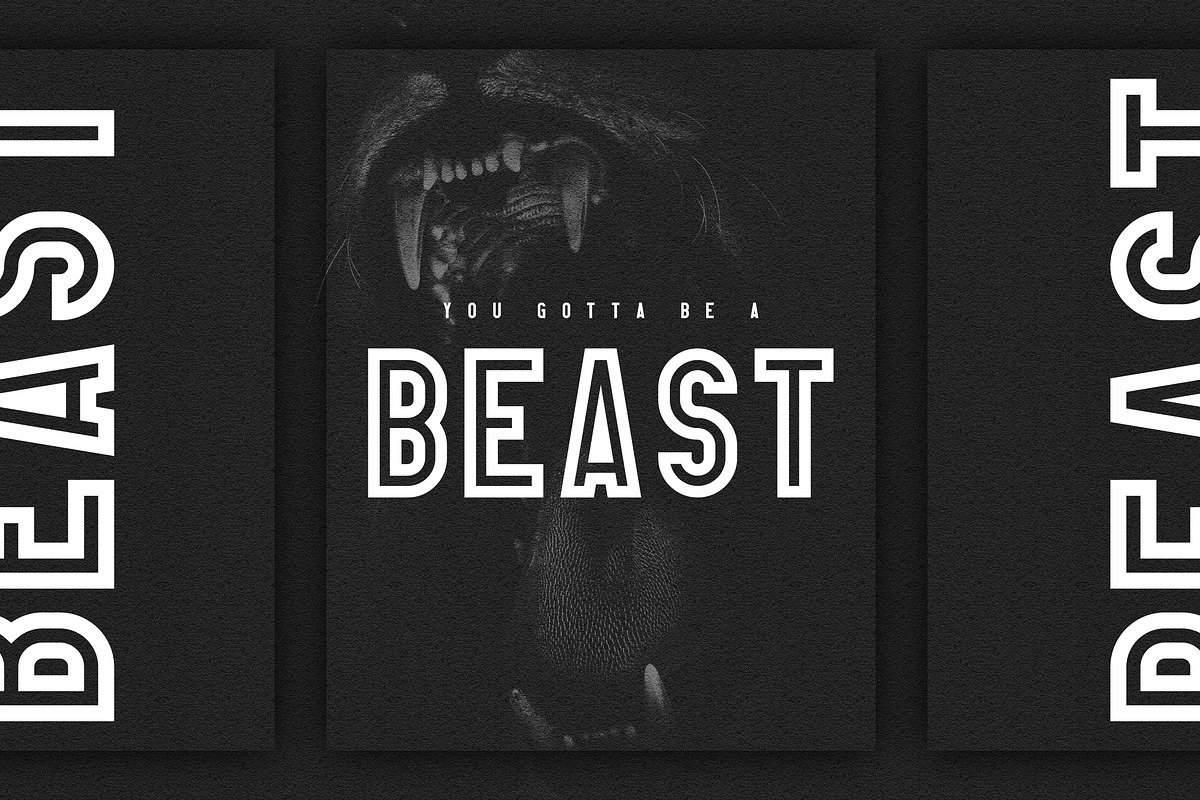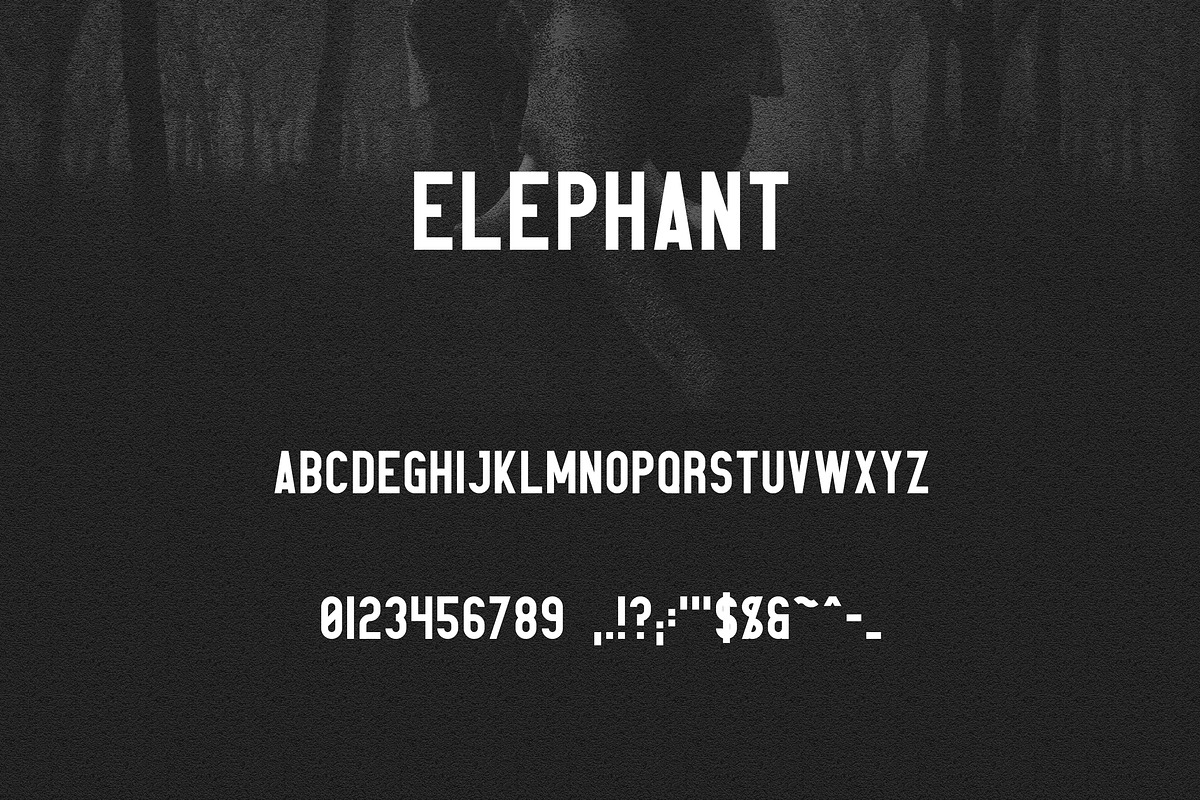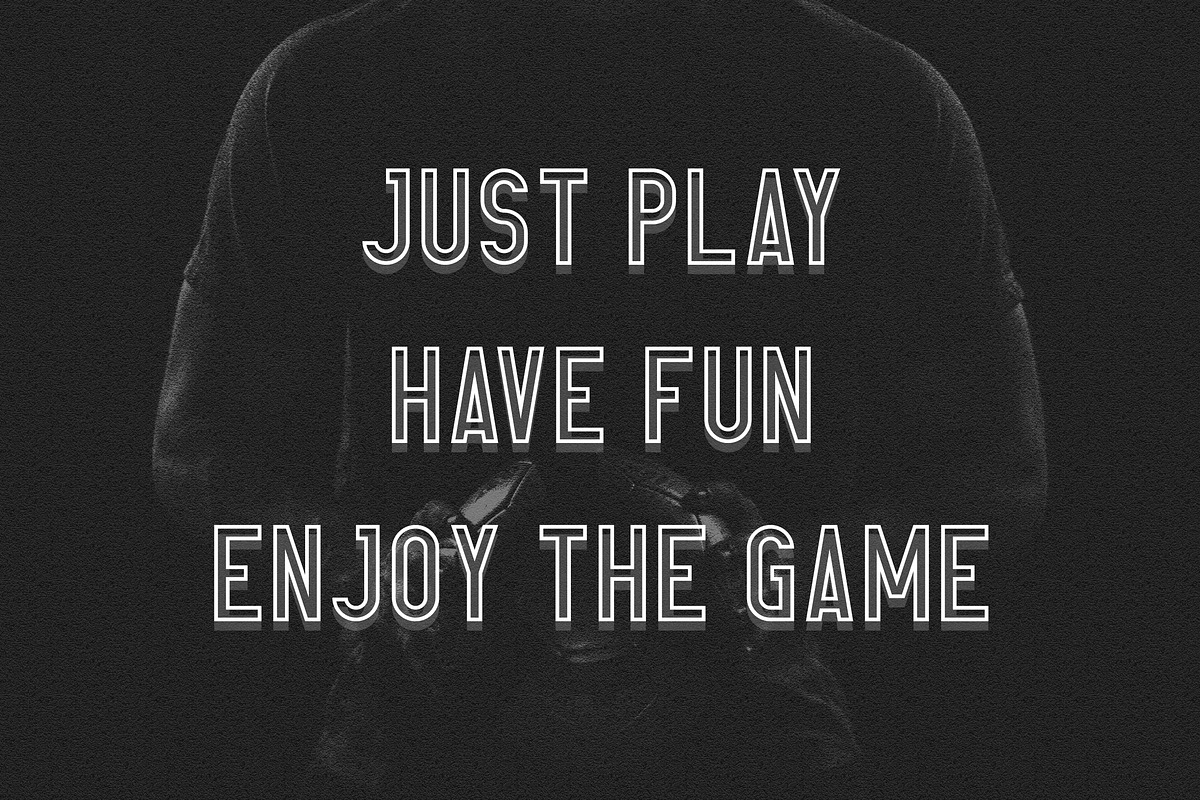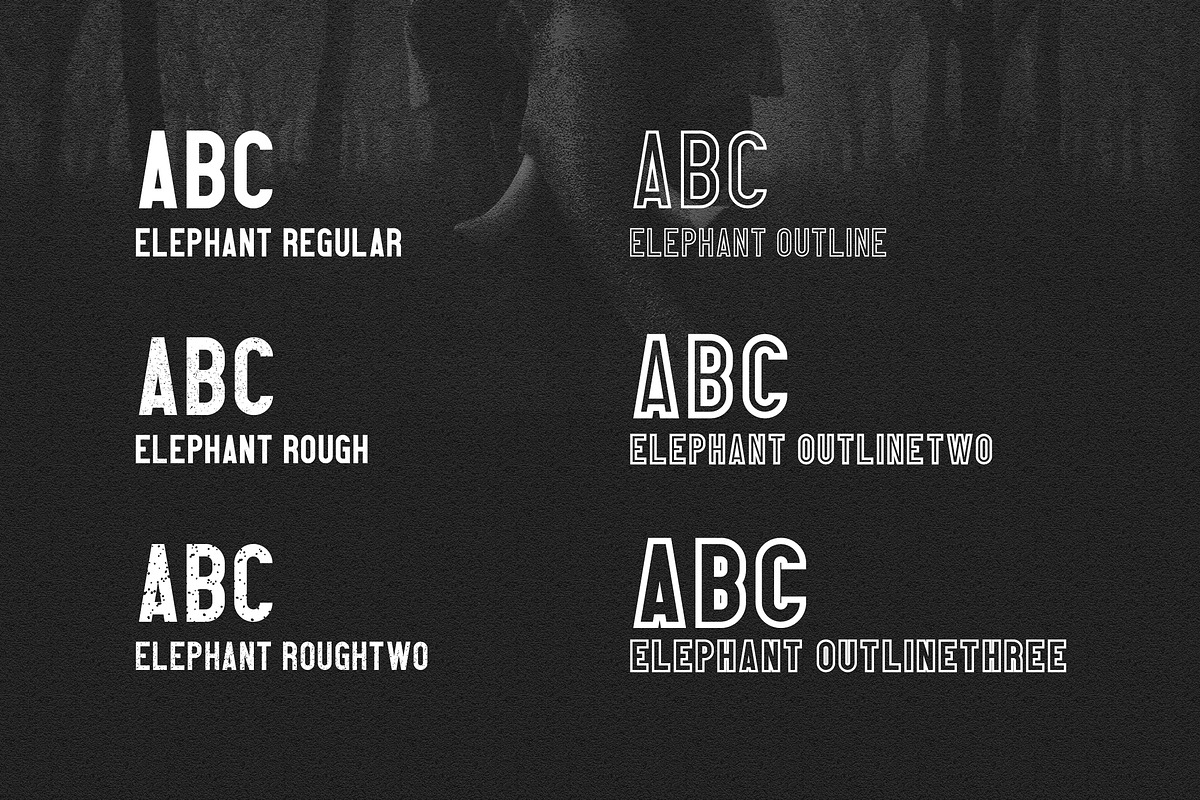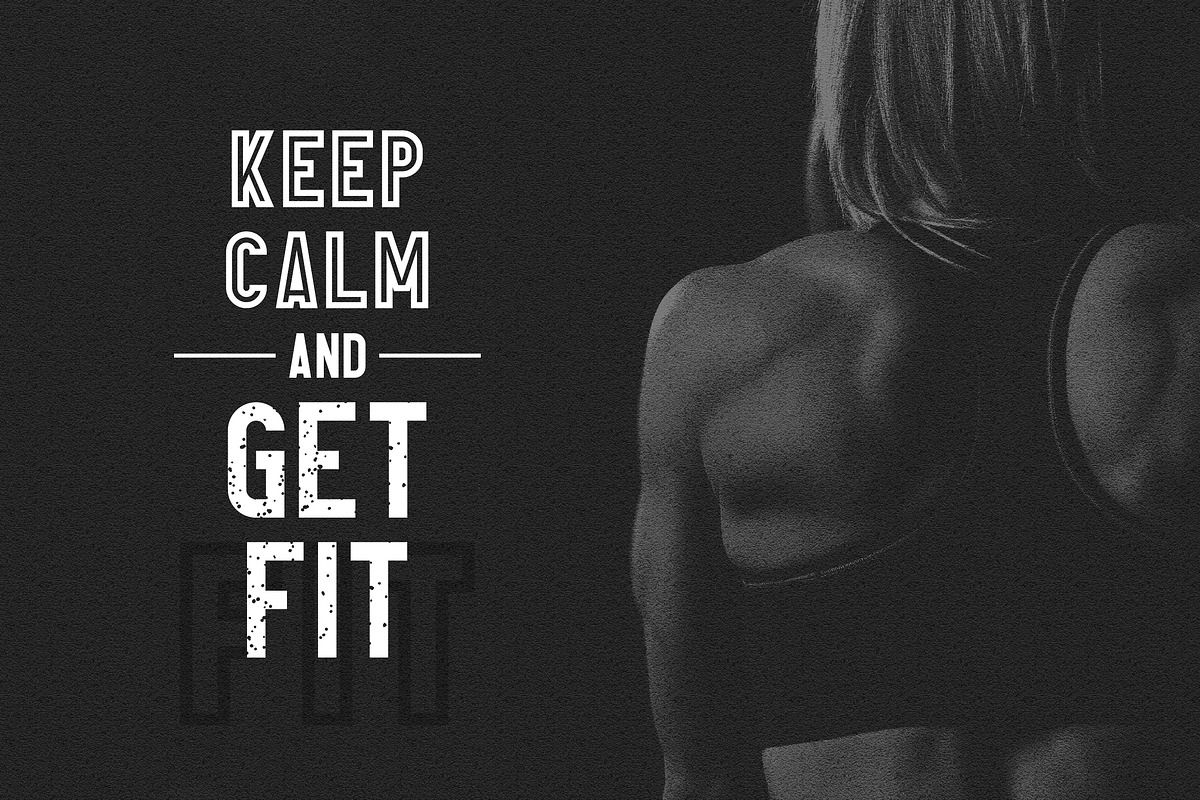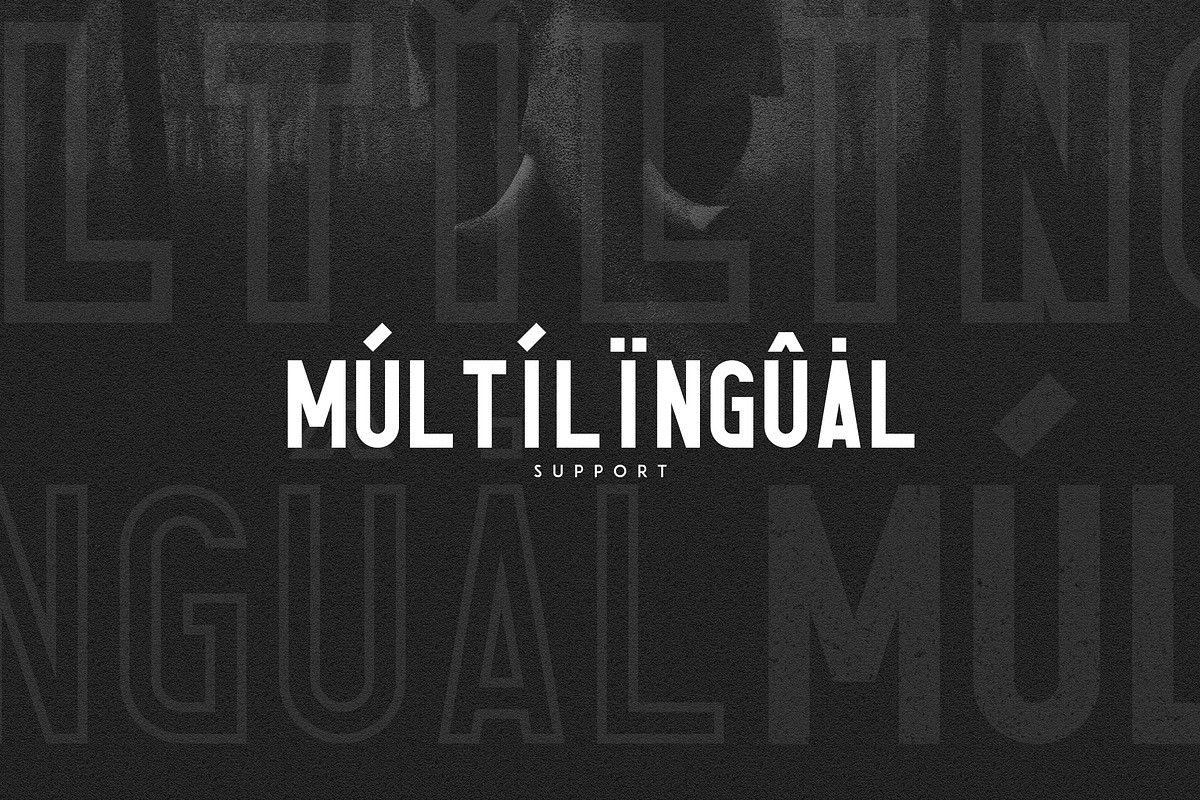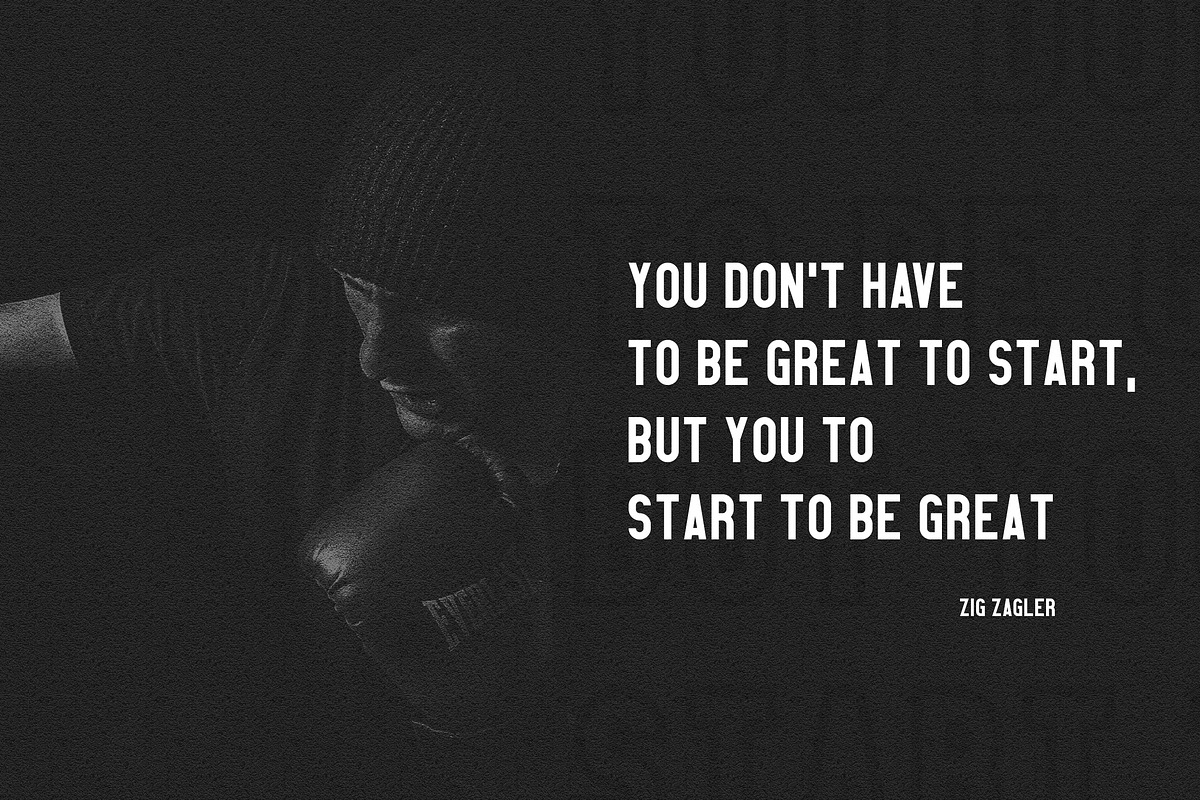
Elephant is bold, powerful sans serif typeface with 6 fonts and multilingual support. It's a very versatile font that works great in large and small sizes.
Elephant is perfect for branding projects, home-ware designs, product packaging, magazine headers - or simply as a stylish text overlay to any background image.
- Elephant Regular
- Elephant Outline
- Elephant OutlineThree
- Elephant OutlineTwo
- Elephant Rough
- Elephant RoughTwo